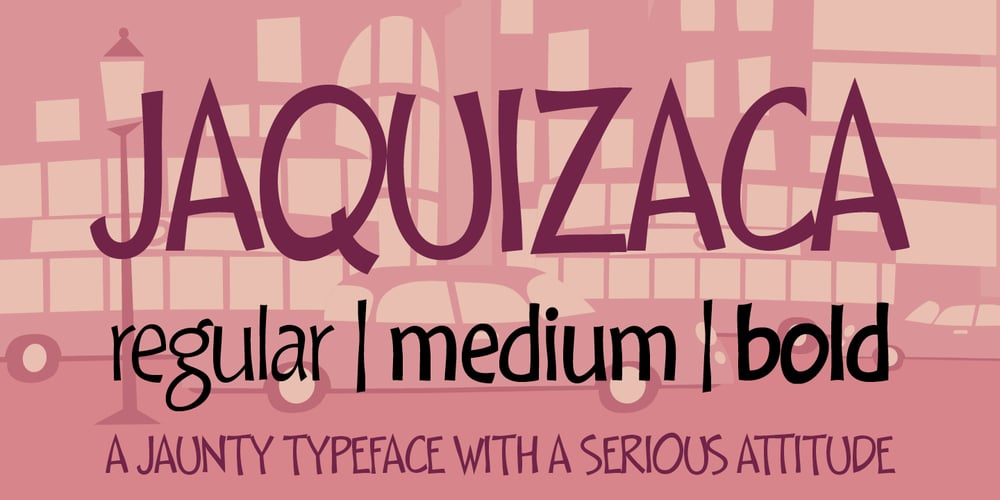
Jaquizaca
Jaquizaca font
Jaquizaca Font Family was designed by Kristians Šics and published by Lamatas un Slazdi. Jaquizaca contains 3 styles and family package options. Jaquizaca is hand drawn type to go well with vector illustrations. Jaquizaca was created in 2001 to make inter-titles for a TV-programme. After twelve years it was revised and updated with ligatures, contextual alternates and other OpenType features. It supports all the European languages using Latin alphabet.